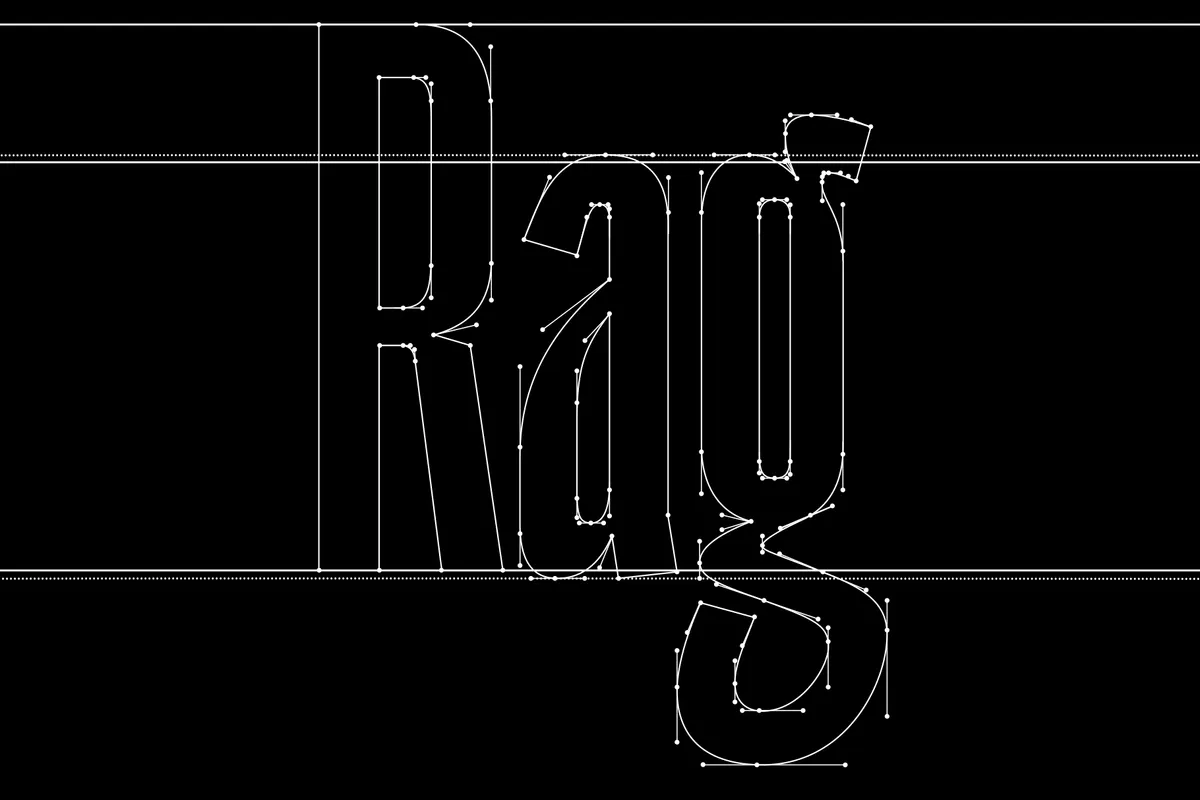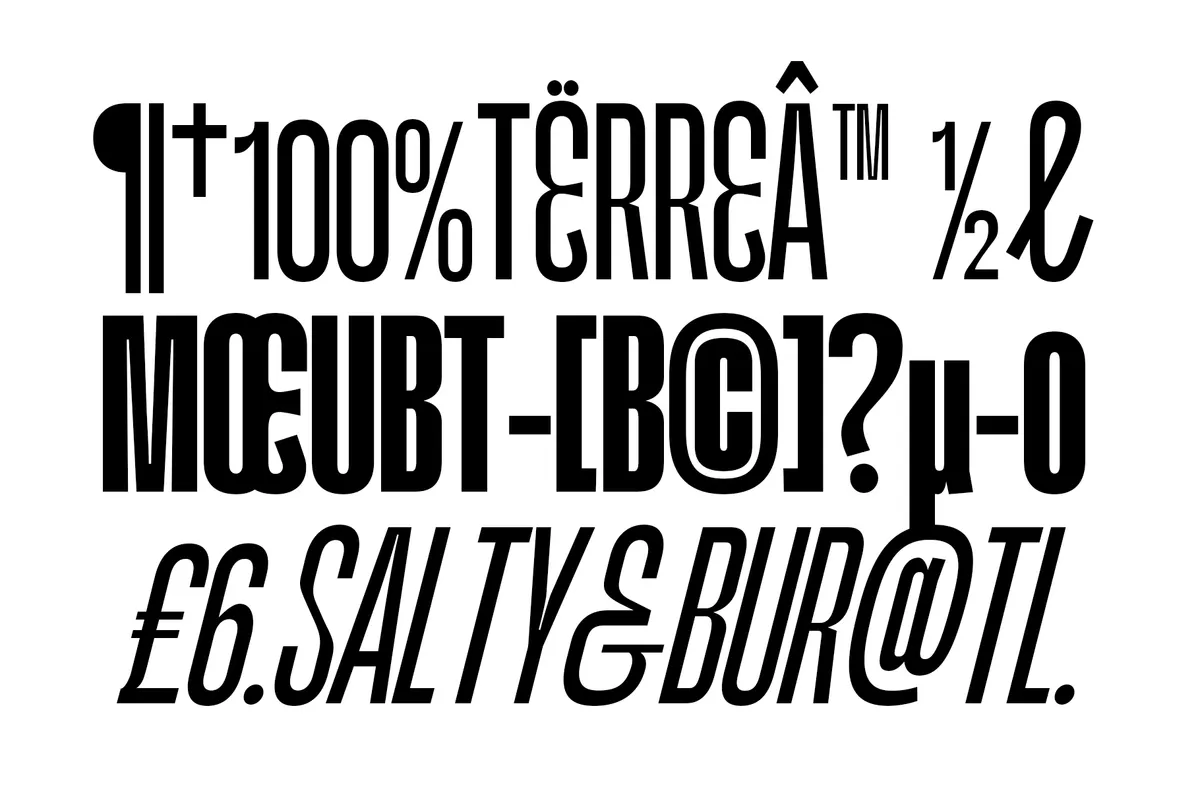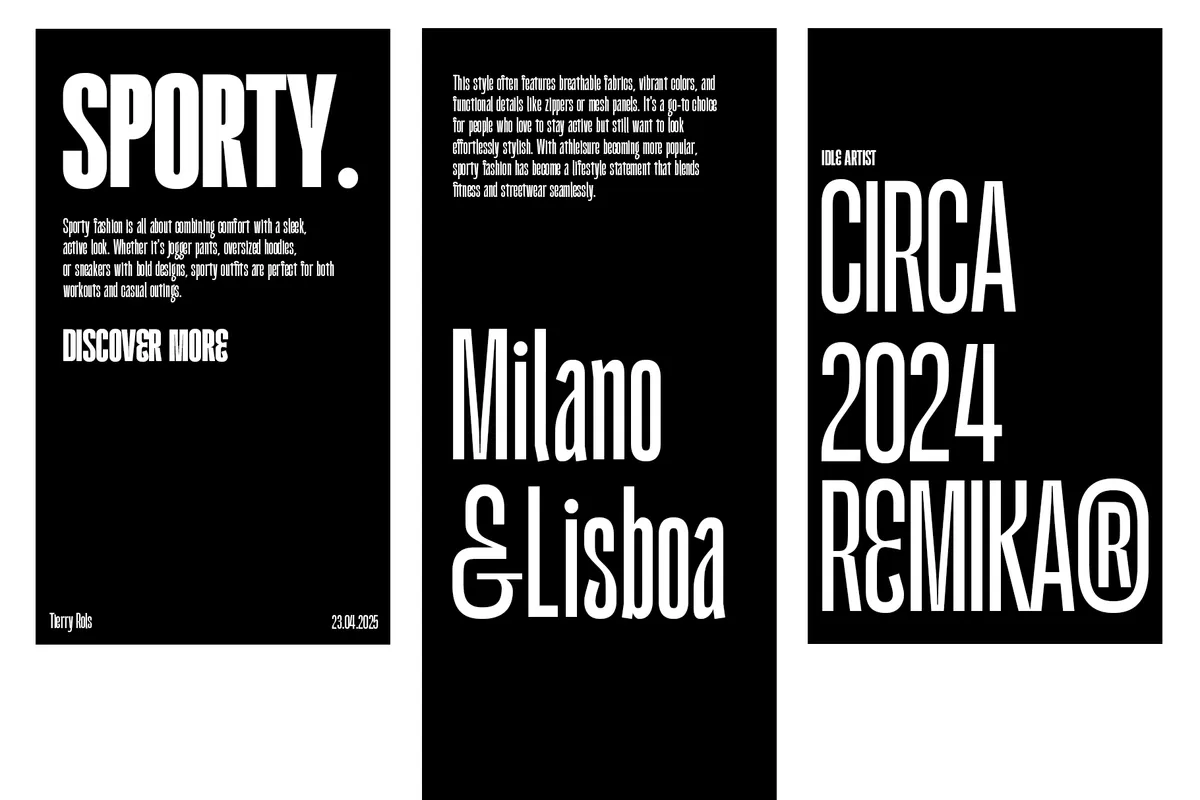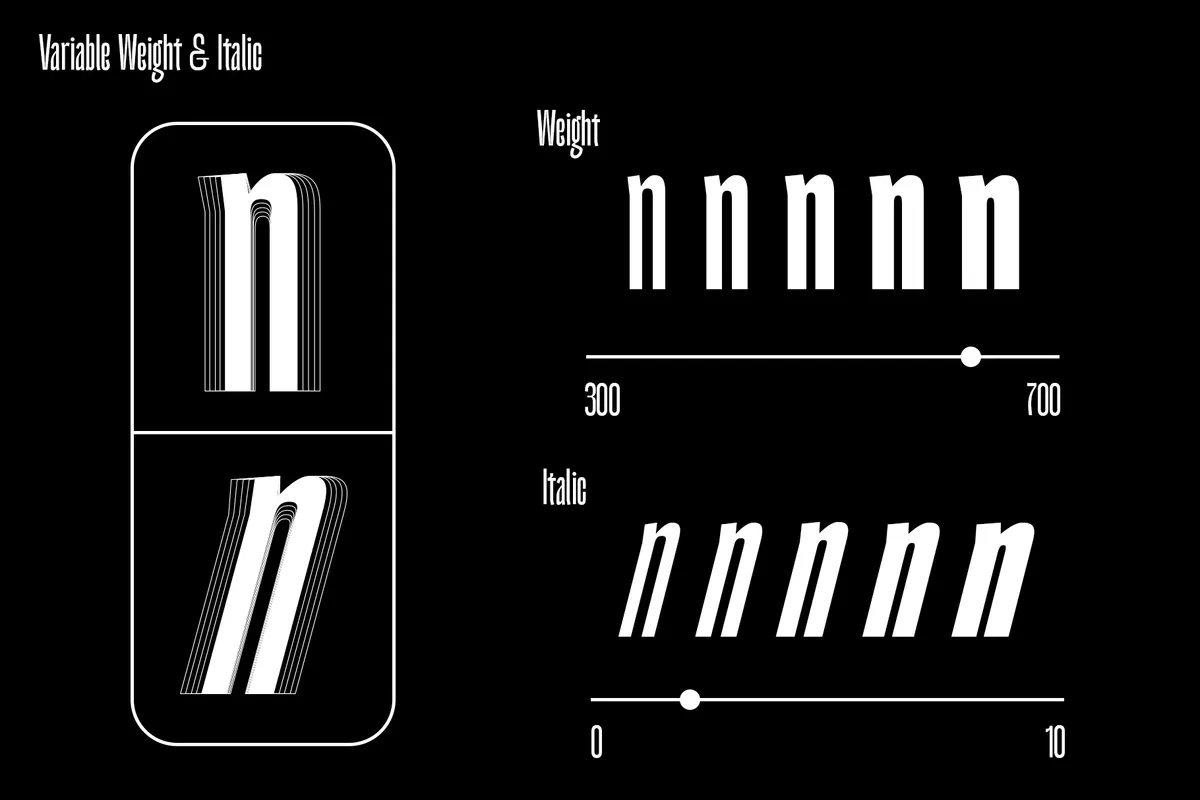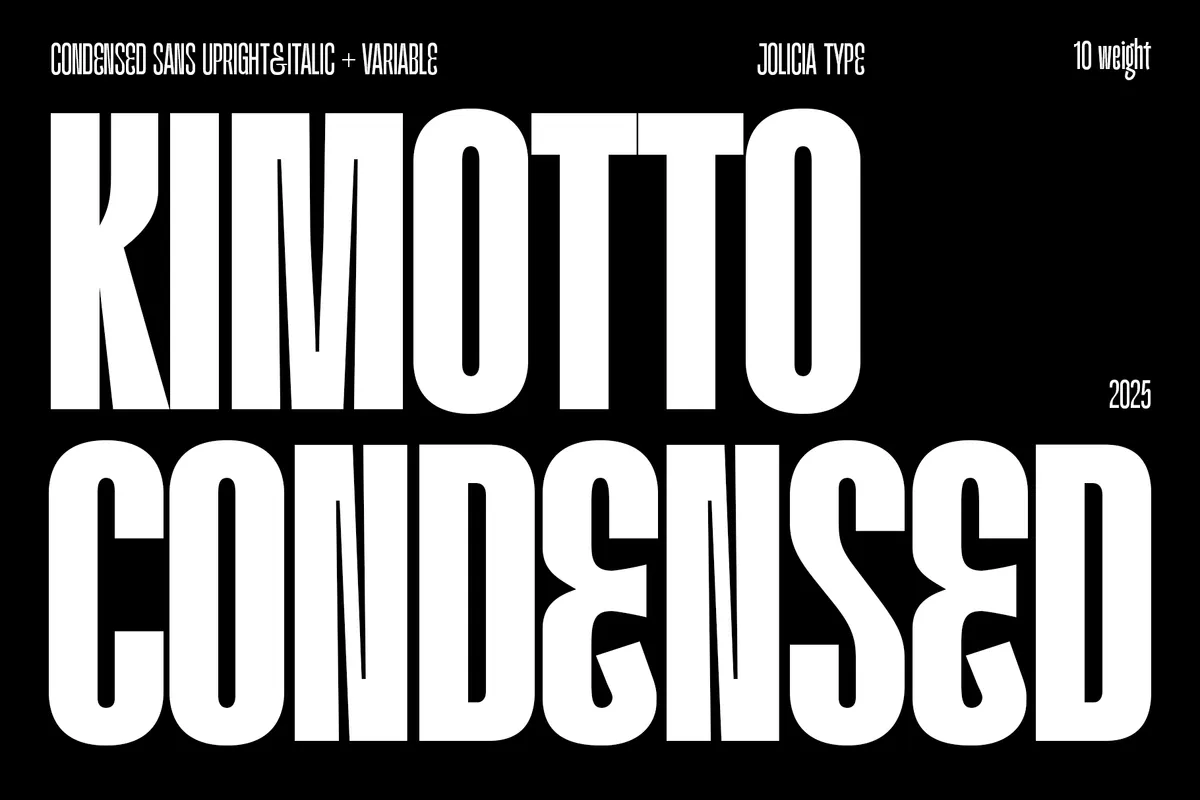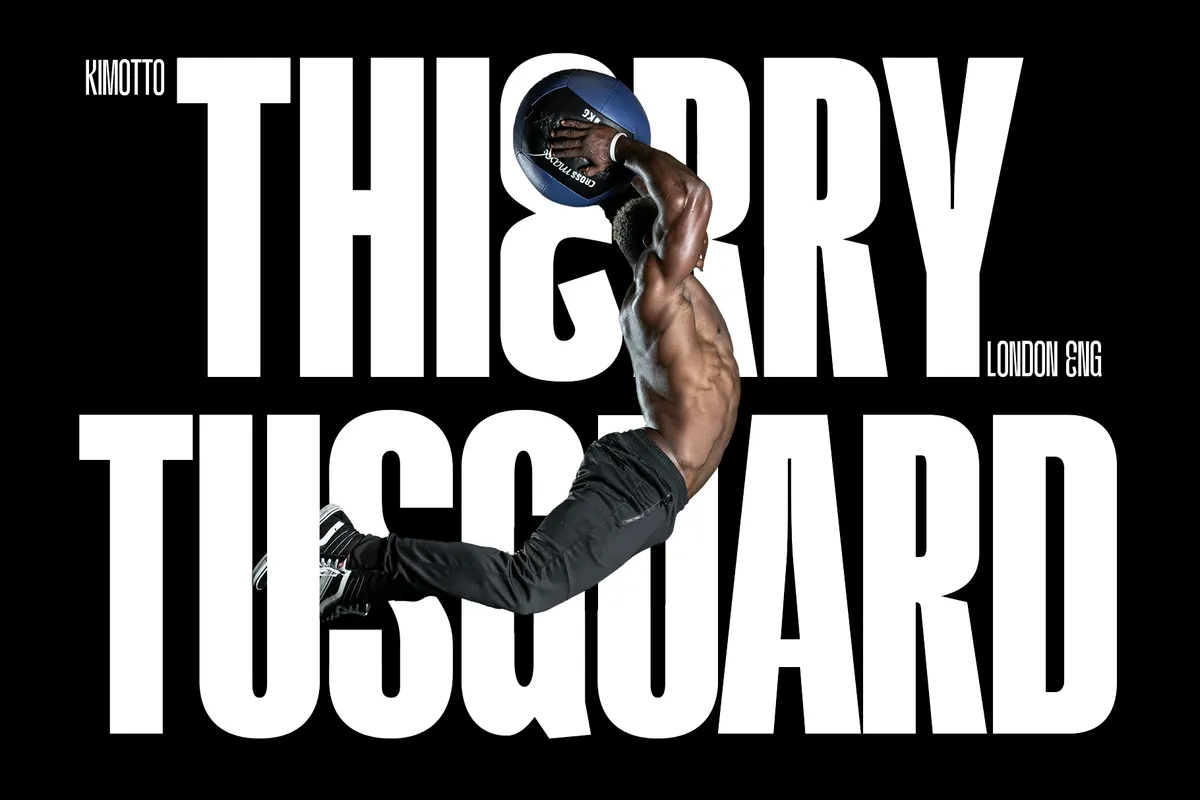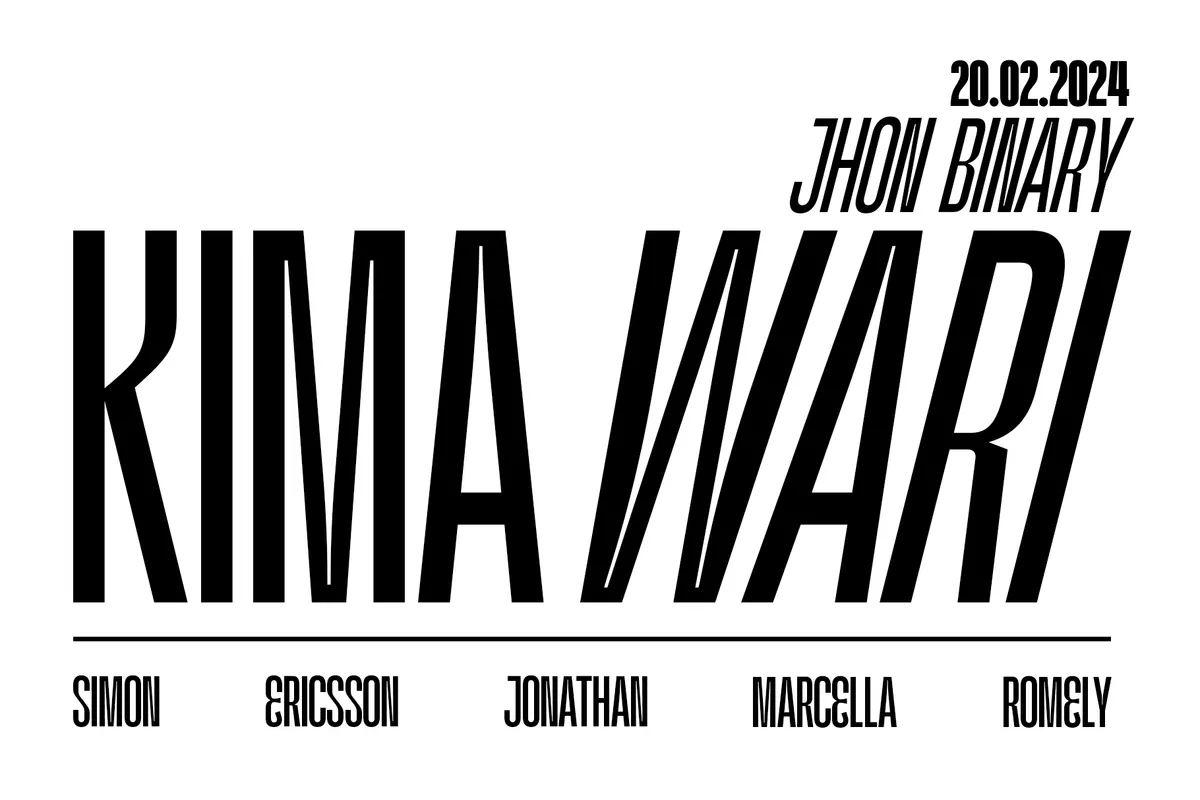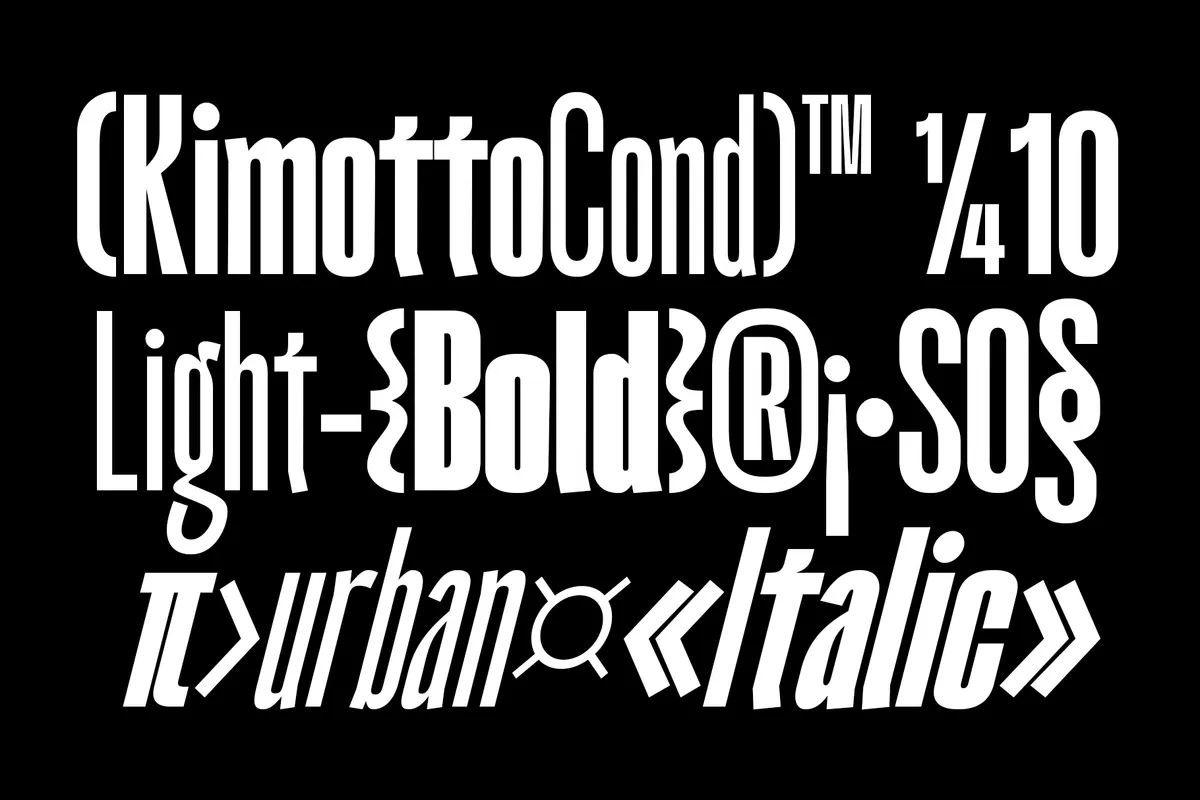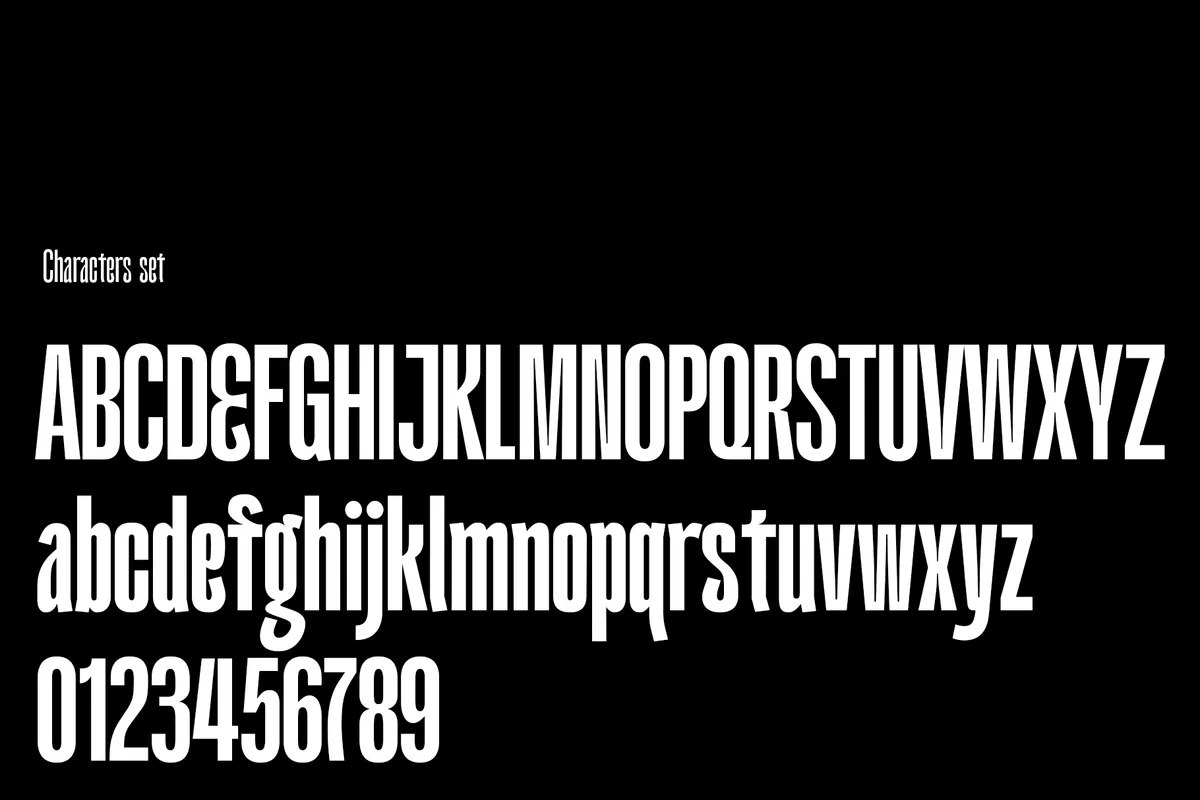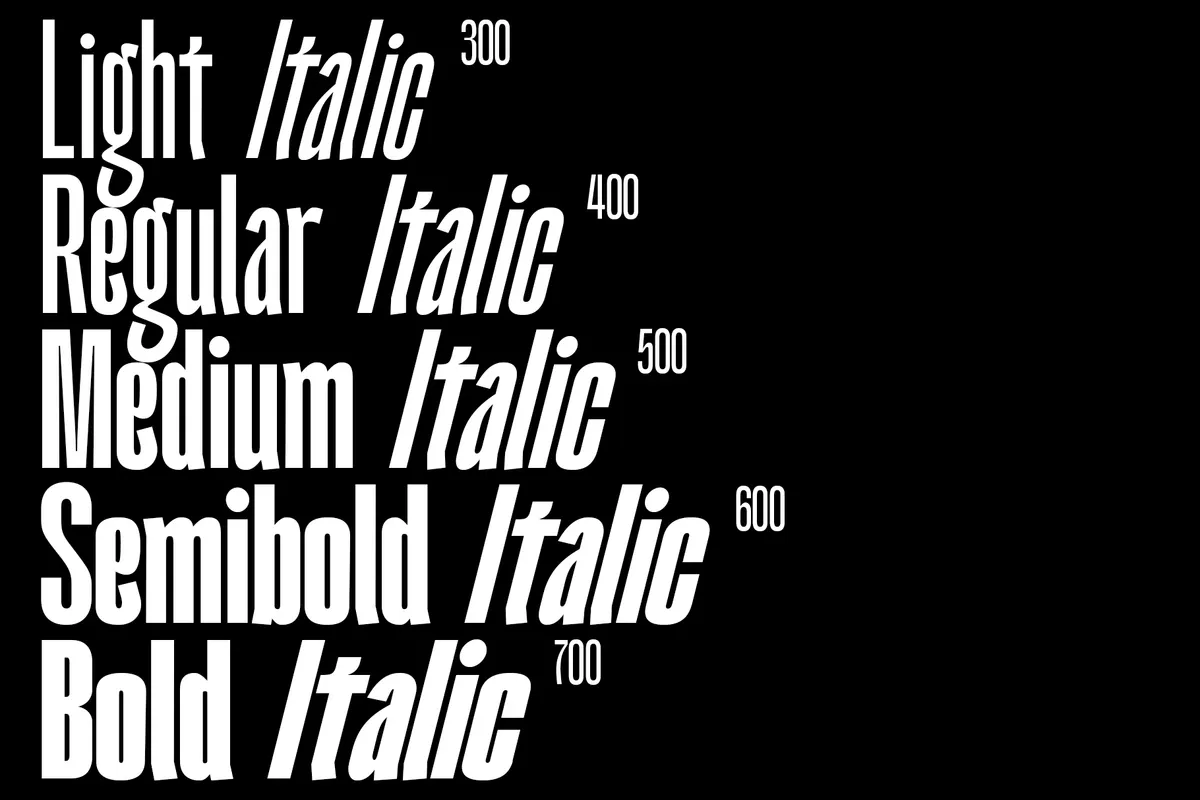
Kimotto Condensed - Bold Sans Serif Font
Kimotto Condensed builds tall, narrow sans capitals with a space-efficient structure, closer to a poster headline face than a general text sans. Five weights move from Light through Bold, and a variable font covers that same range plus a 15-degree oblique in a single file.
Use it for headlines, posters, branding, packaging, editorial layouts, and user interfaces.
- Uppercase & lowercase;
- Numerals, punctuation & symbols;
- 5 weights: Light, Regular, Medium, SemiBold, Bold;
- Variable font covering the full weight range and a 15-degree oblique;
- 12 ligatures, fractions, superscript figures;